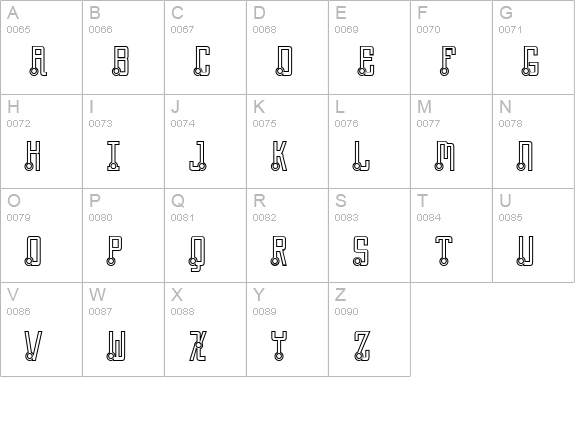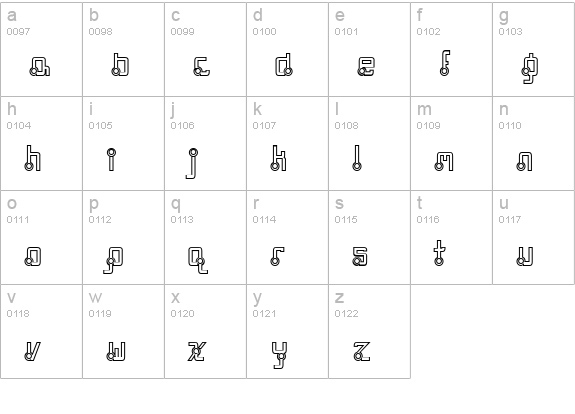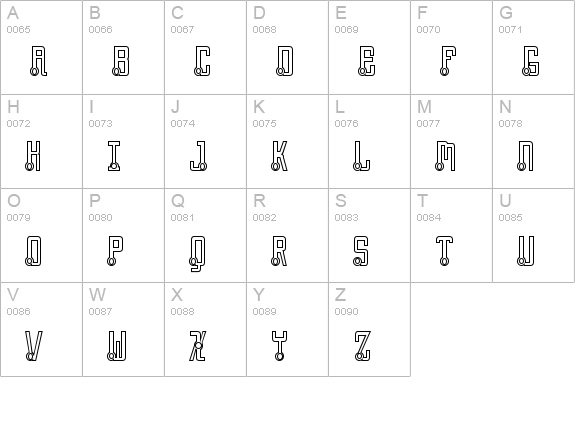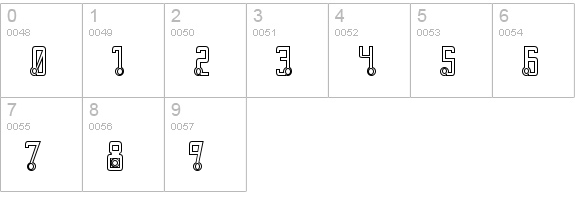
Quasidipitous Hollow Font Details
Introducing Quasidipitous Hollow, a captivating and unique font that effortlessly combines elegance with a touch of whimsy. This font is sure to make a bold statement, whether used for branding, headlines, or any creative project that requires a touch of personality. Quasidipitous Hollow boasts a striking design that is both modern and timeless. Its intricate details and graceful curves give it a refined and sophisticated look, while its hollow interiors add a playful twist that sets it apart from other fonts. This font truly embodies the perfect balance between elegance and creativity. One of the most remarkable features of Quasidipitous Hollow is its versatility. It can seamlessly adapt to various design styles, making it a perfect choice for both digital and print applications. From logos and packaging to invitations and social media graphics, this font will effortlessly elevate any project to new heights. And the best part? Quasidipitous Hollow is available for free download at FontsMarket.com. Yes, you read that right! This incredible font can be yours without spending a dime. FontsMarket.com is your go-to source for high-quality fonts, and Quasidipitous Hollow is just one of the many gems you can find in their extensive collection. So why wait? Don't miss out on the opportunity to add Quasidipitous Hollow to your font library. Download it today and unleash your creativity with this stunning typeface. With its free availability and undeniable charm, Quasidipitous Hollow is the perfect choice for any design enthusiast or professional looking to make a lasting impression.